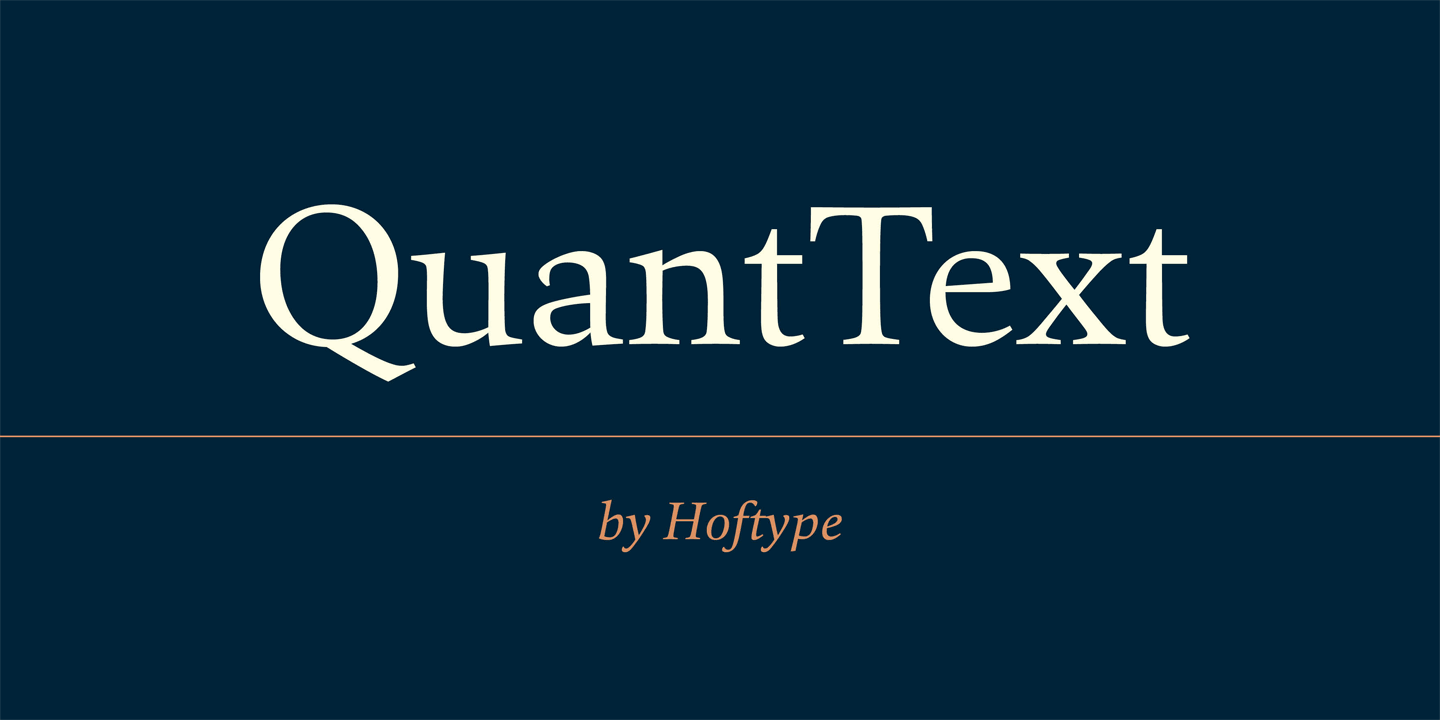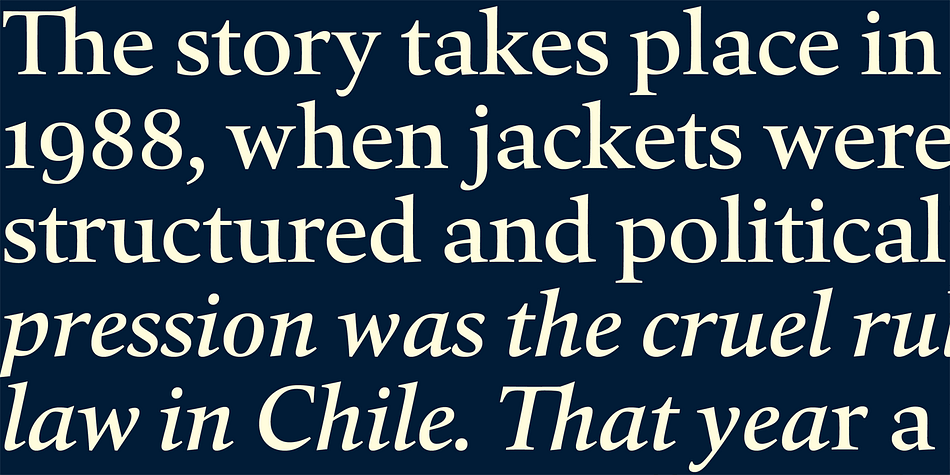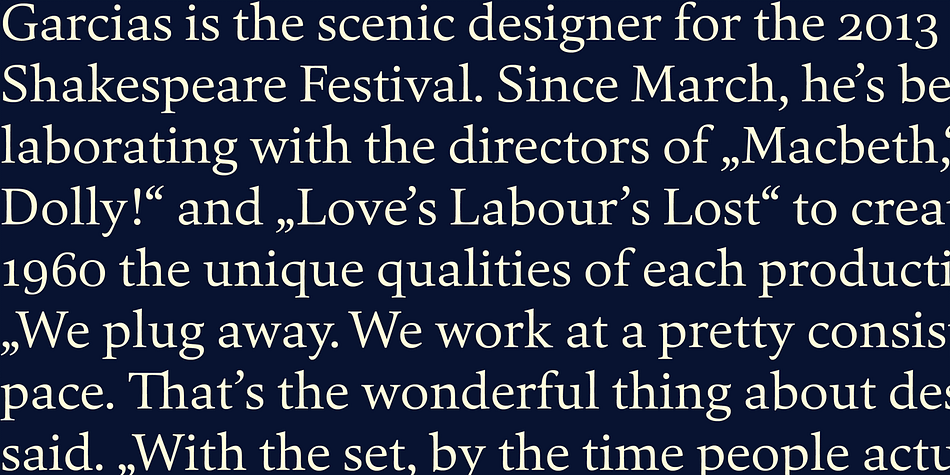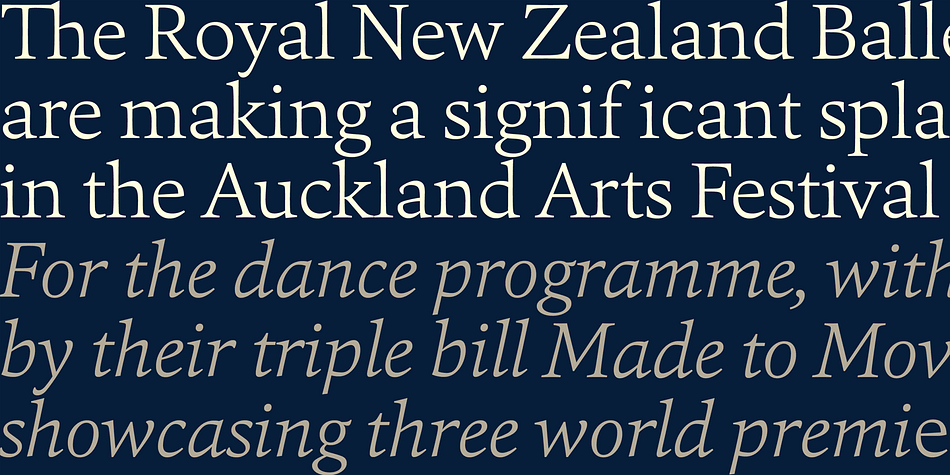
Quant Text is a serif font family. This typeface has eight styles and was published by Hoftype.
Quant Text is the optimized text version of the Quant family. It comes with a slightly greater width, stronger hairlines and stronger serifs which make it very stable in small sizes but also give it a forceful appearance when used for headlines.
Quant is well-equipped for ambitious typography. The Quant family consists of 8 styles, comes in OpenType format with extended language support for more than 40 languages. All weights contain small caps, proportional lining figures, tabular lining figures, proportional old style figures, lining old style figures, matching currency symbols, fraction- and scientific numerals.